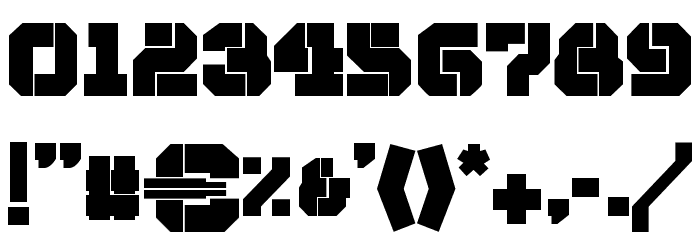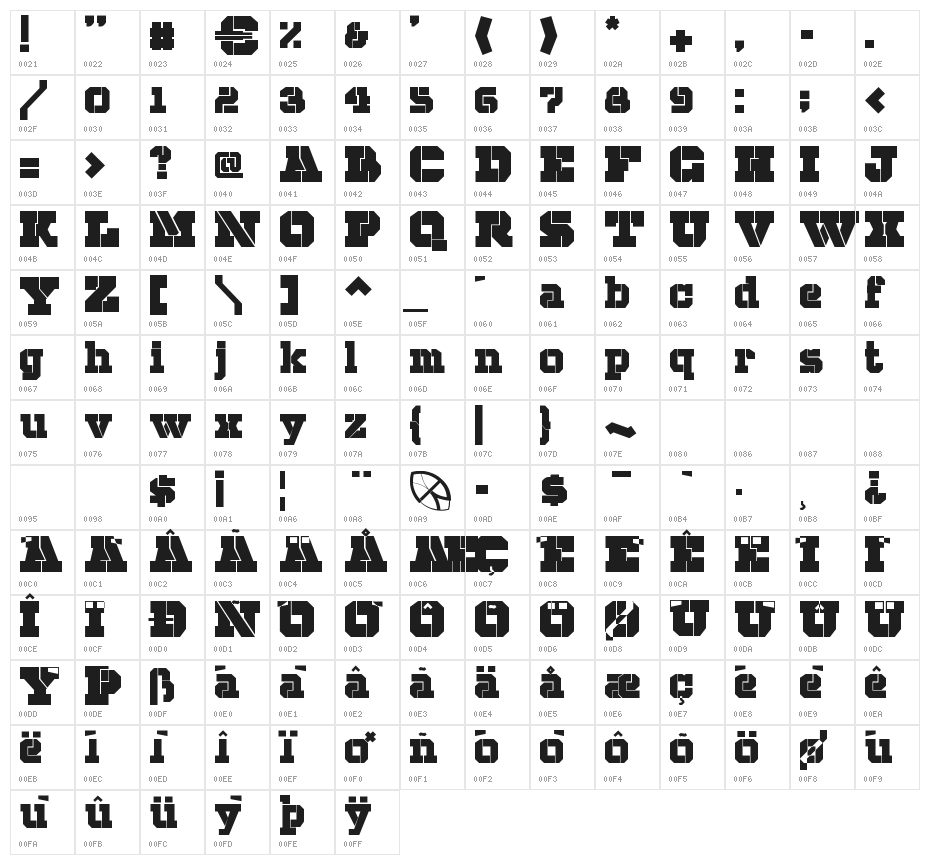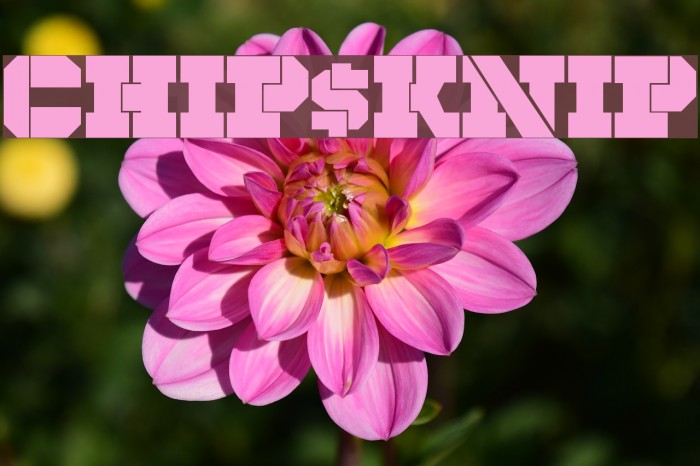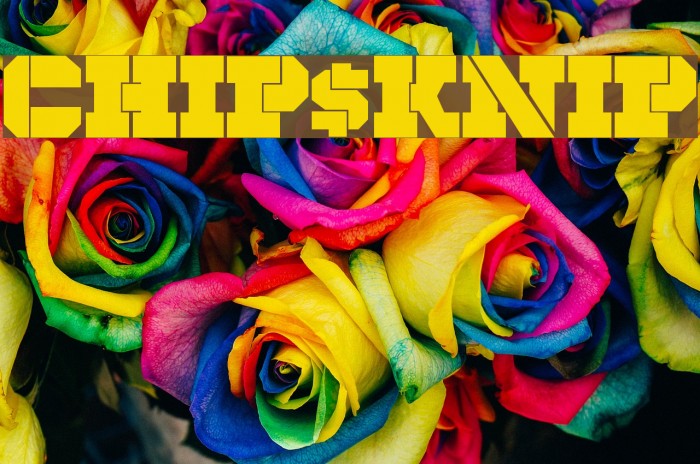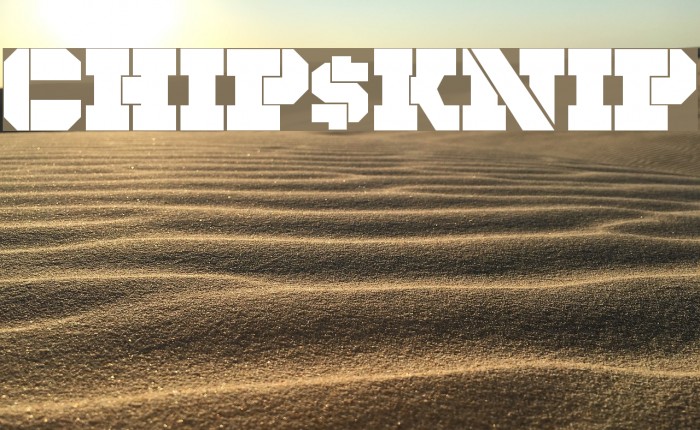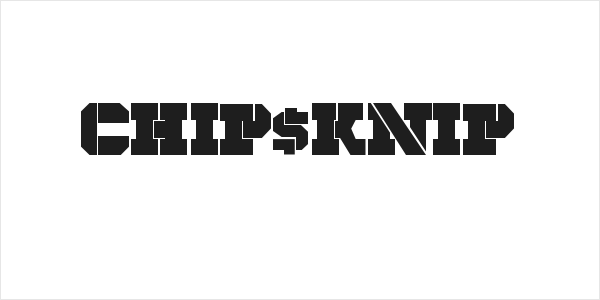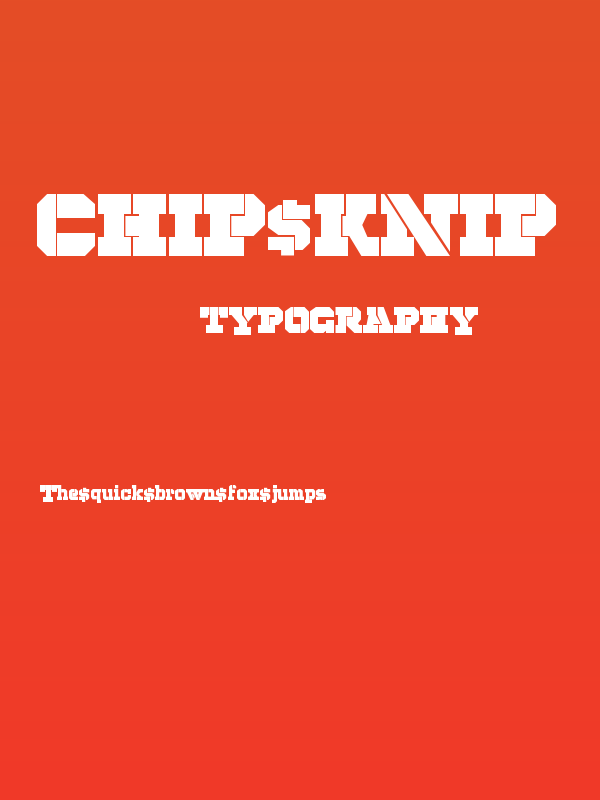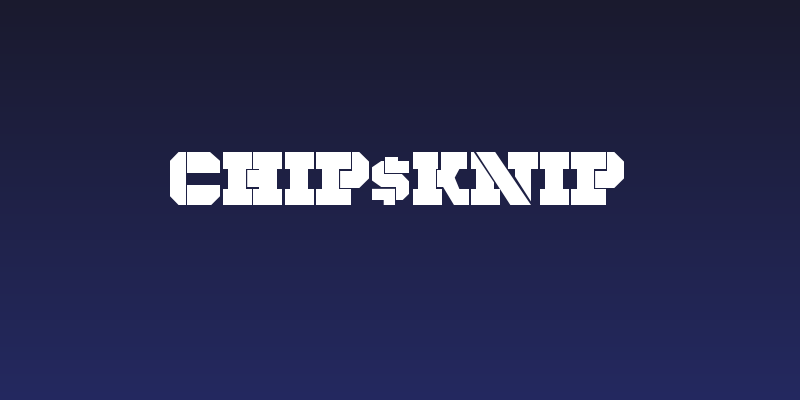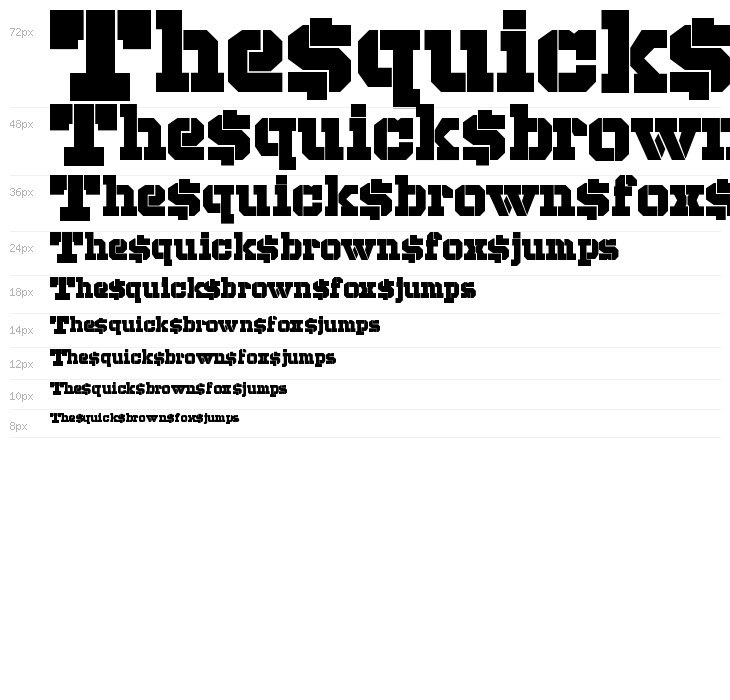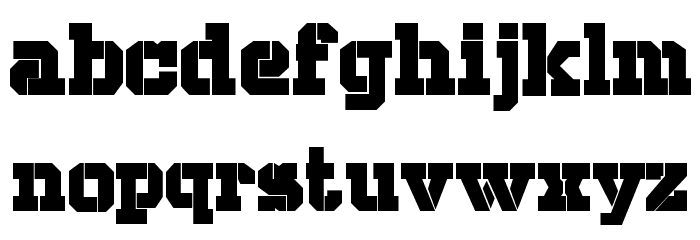
CHIP KNIP Font
CHIP KNIP Description
This font features a bold, geometric design with a strong, industrial feel. The characters are constructed with sharp angles and block-like shapes, giving it a distinctive, futuristic appearance. The uppercase letters are particularly striking, with a uniform height and width that create a cohesive look. The lowercase letters maintain the same geometric style, ensuring consistency across the typeface. Numbers and special characters are designed to match the bold, angular theme, making them stand out in any design. This font is ideal for projects that require a modern, edgy aesthetic.
CHIP-KNIP UPPERCASE
CHIP-KNIP LOWERCASE
CHIP-KNIP OTHER CHARS